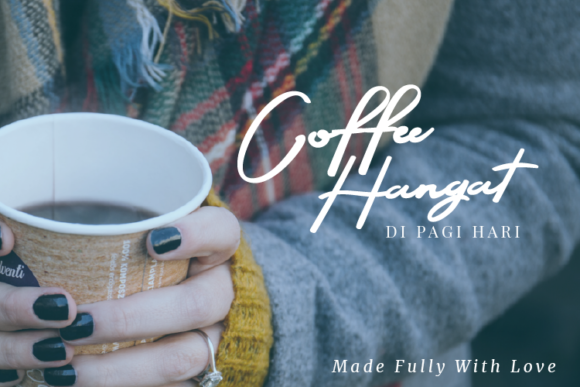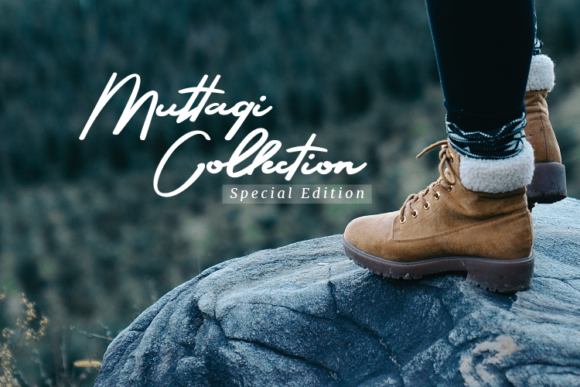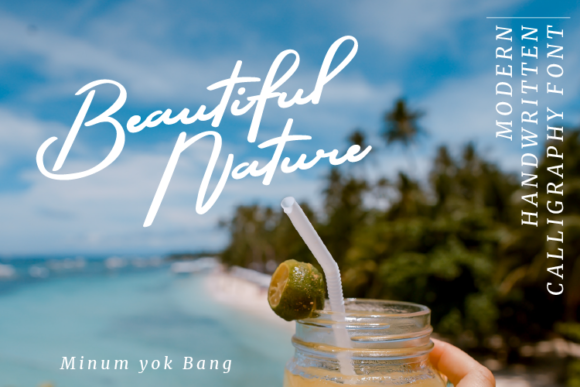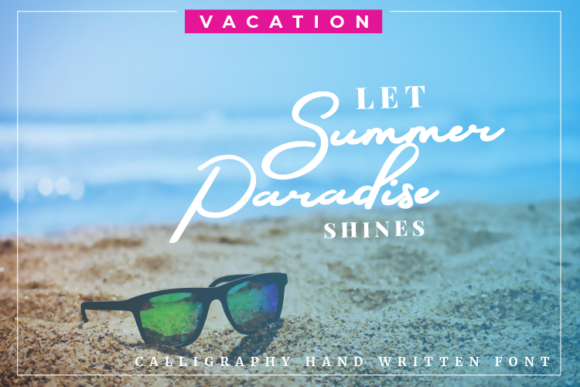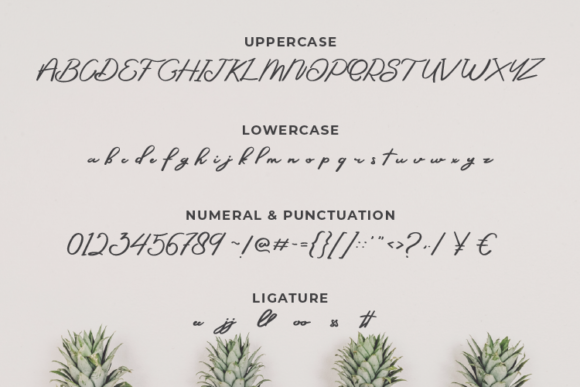
Sepeda Janda Font
About Sepeda Janda Font
Sepeda Janda is a casual script font. This font is perfect for quotes, shirt designs, websites, branding, children’s designs, wedding decor, home decor, blogs, logos,product campaign invitations and more!